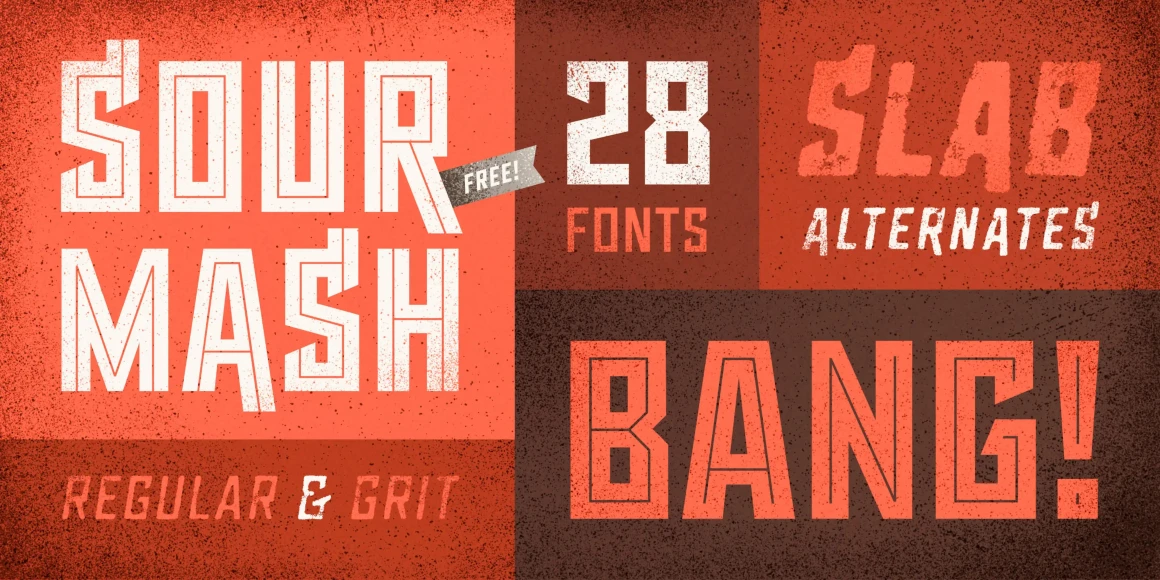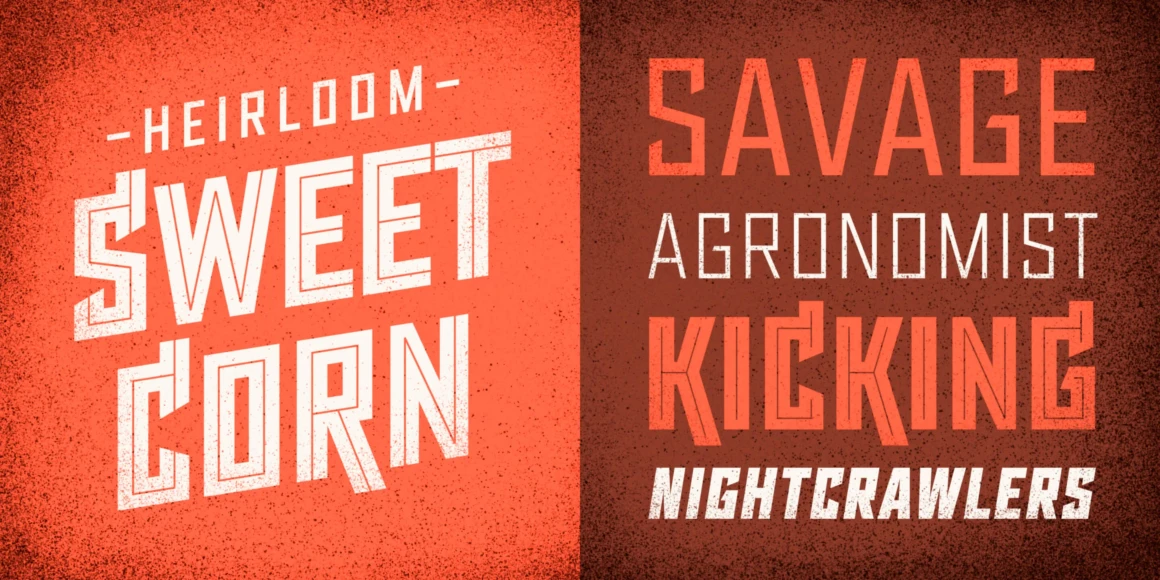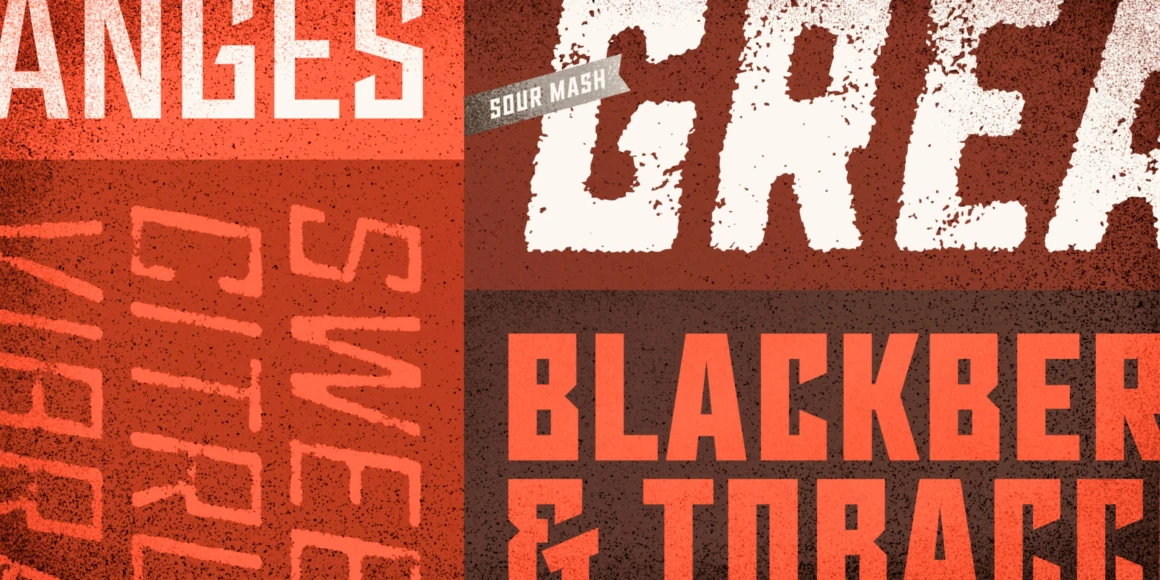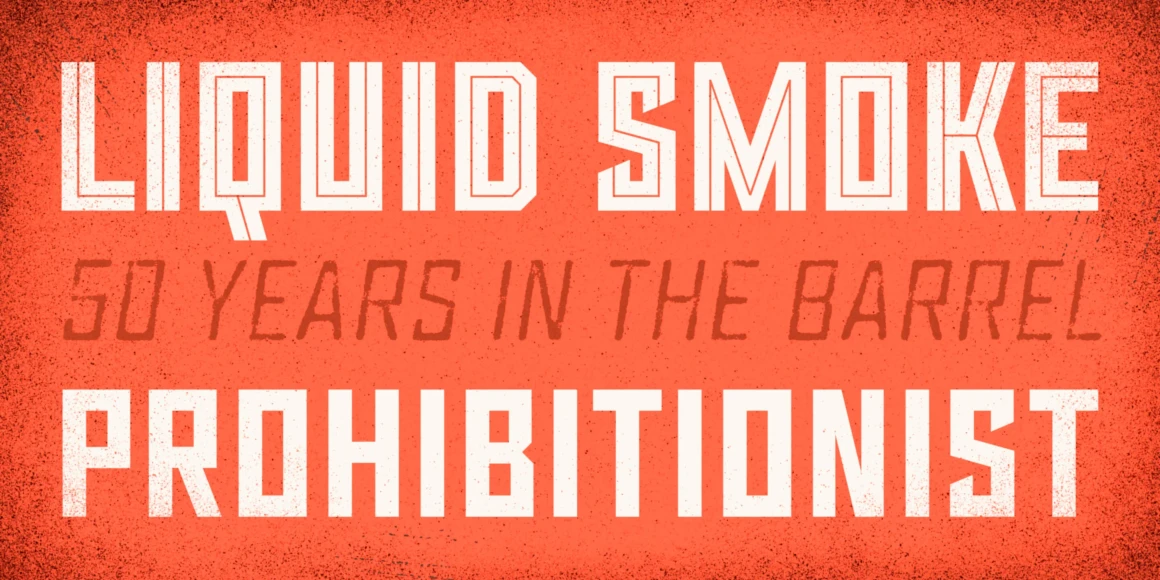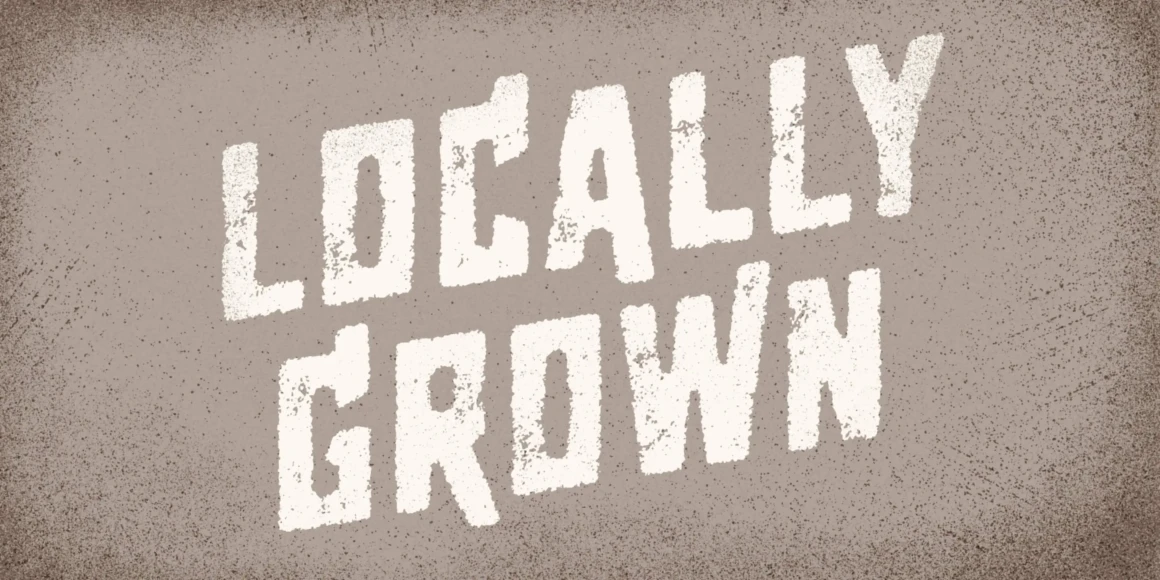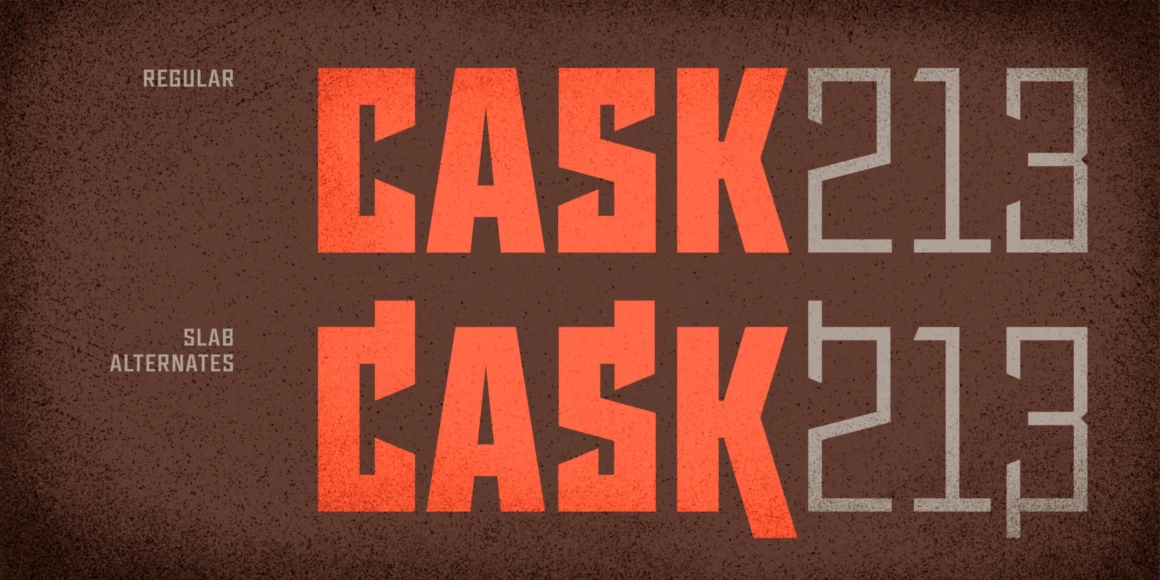
Sour Mash
By Ryan Martinson
Sour Mash is a 28-font all-caps typeface distilled from geometric, industrial, and vintage letterforms. The regular versions are sharp and defiant, while “grit” versions add a bit of prohibitionist nostalgia. Features include slab alternates, professional typographic features, extensive language support, and double-letter ligatures to prevent duplicate texture in adjacent characters (for grit versions).